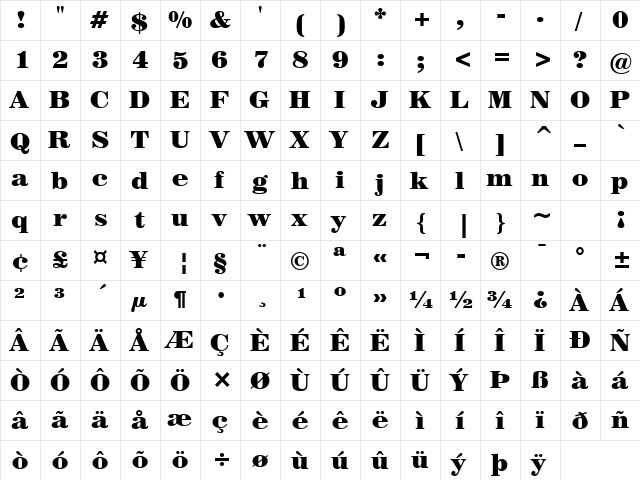
Century725 Blk BT Black Font Preview
Century725 Blk BT Black
Design Context for Century725 Blk BT Typeface
Century725 Blk BT takes a measured approach to typography — its balanced proportions and neutral character make it a reliable workhorse for both digital and print work.